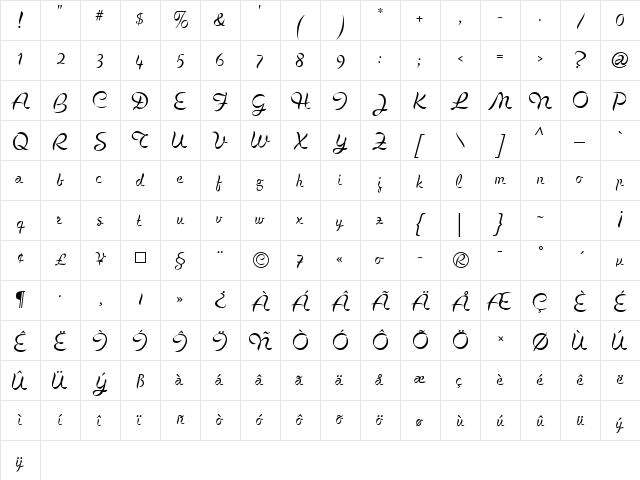
Cigno Regular
Design Context for Cigno Typeface
Cigno is a composed and adaptable typeface that performs quietly and consistently across a wide range of design contexts.